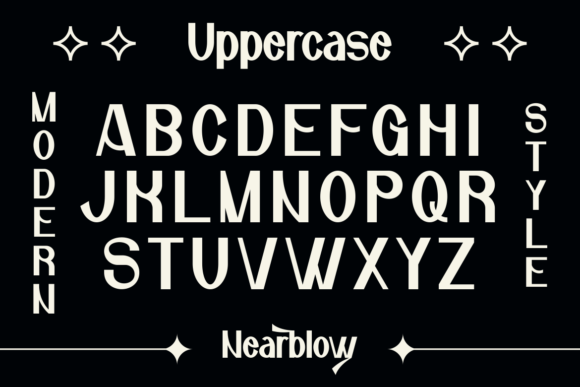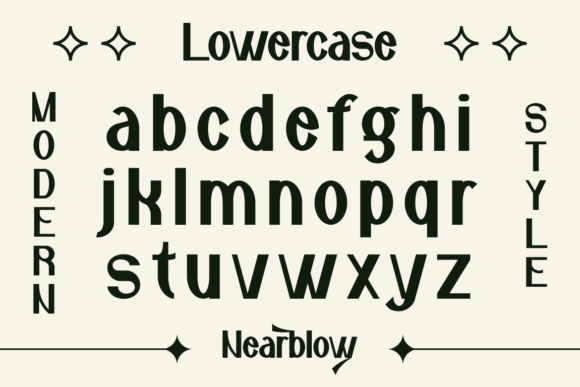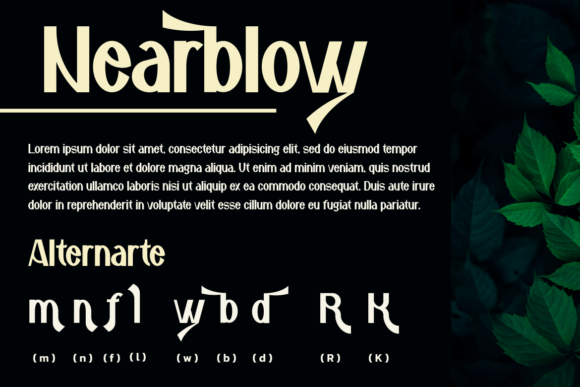
Introduction to Nearblow Font
Have you ever stared at a blank canvas, waiting for inspiration to strike? That’s exactly where I was when I first discovered the Nearblow Font. Its bold, authentic design had me hooked from the very first glance. As a designer, I’ve always been on the lookout for high-quality design resources that can elevate my creative projects.
The Nearblow Font is more than just a stylish addition to any design – it’s a game-changer. With its versatility and unique character, it’s perfect for branding projects, logo designs, t-shirt printing, and even product packaging. Whether you’re working on a digital or print-based project, this font is sure to make a statement. And the best part? It’s available for free download, making it an accessible design resource for creatives of all levels.
What sets Nearblow Font apart is its ability to shine in a wide range of contexts, from bold and eye-catching to subtle and sophisticated. With a transparent background option, you can easily integrate it into any design, making it a valuable addition to your design toolkit.
Key Features of Nearblow Font
- High-quality, vector-based design resource ideal for creative projects
- Features a unique, modern design aesthetic making it perfect for contemporary creative projects
- Includes a range of glyphs and characters for versatile use in various design applications
Honest Review: Nearblow Font
I recently had the chance to work with the Nearblow Font for a creative project, and I’m excited to share my thoughts on this design resource. Overall, I was impressed with its unique style and versatility.
- The Nearblow Font has a distinctive, modern aesthetic that’s perfect for contemporary design projects.
- I appreciate that the font includes a transparent background, making it simple to layer over other design elements.
- Unfortunately, the Nearblow Font doesn’t offer as many customization options as some other high-quality fonts I’ve worked with.
- The font may not be suitable for projects that require a more classic or traditional look.
Overall, I’m very pleased with the Nearblow Font and would recommend it to designers looking for a modern, high-quality font for their creative projects. With its ease of use and unique style, it’s a great addition to any design resource library.
Nearblow Font is a high-quality design resource ideal for creative projects requiring a unique and stylish touch. This font features a transparent background, making it perfect for overlays and other design elements.
For optimal results, use Nearblow Font in conjunction with other high-quality design elements. Experiment with different font sizes and styles to achieve the desired look.
Nearblow Font is ideal for use in logos, social media graphics, and other design elements where a unique and stylish touch is required.